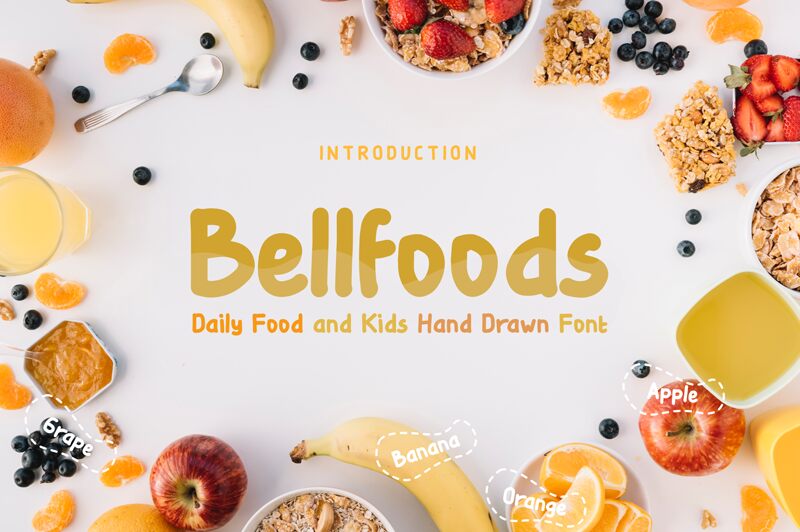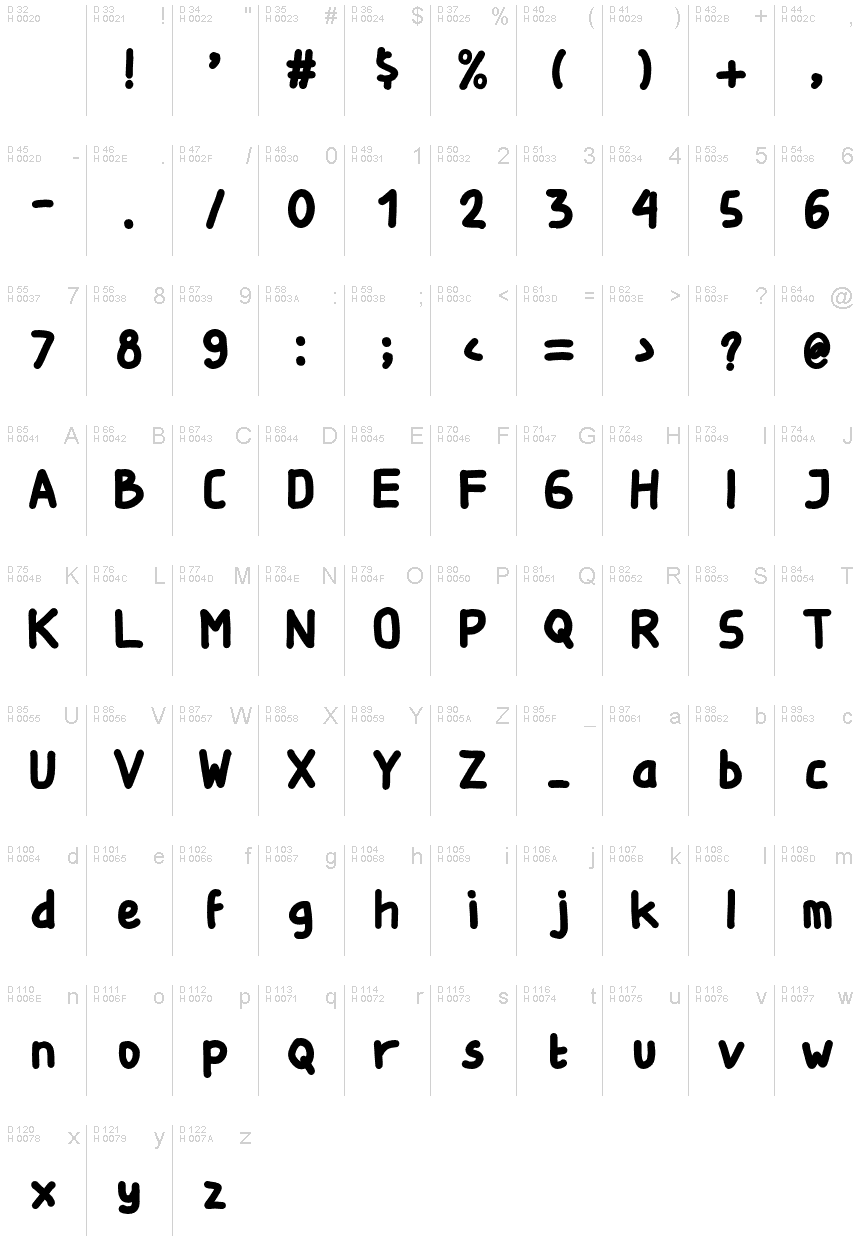
BellfoodsRegular
Bellfoods is a handdrawn font with a great personality.
It will elevate a wide range of design projects to the highest level, be it kids, foods
branding, headings, wedding designs, invitations, signatures, logos, labels, and much more!